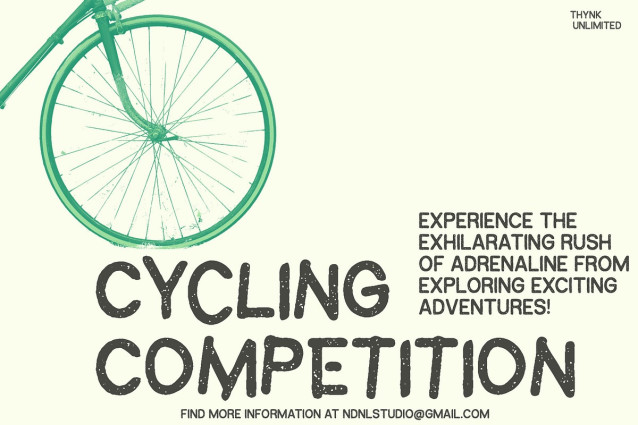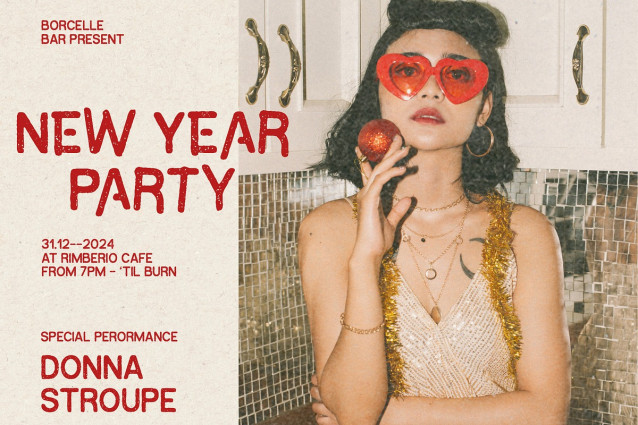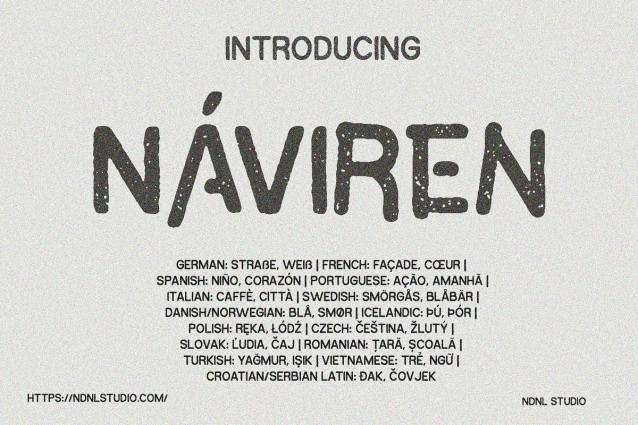
Naviren Font
Naviren Font is a handcrafted display typeface with a rustic, playful, and expressive personality. Featuring organic letterforms and a unique grainy texture, Naviren delivers a warm handmade feel while remaining bold and eye-catching.
The font comes with extensive multilingual support including Western & Central European, Scandinavian, Turkish, Romanian, Vietnamese, and many special characters — making it perfect for global design projects.